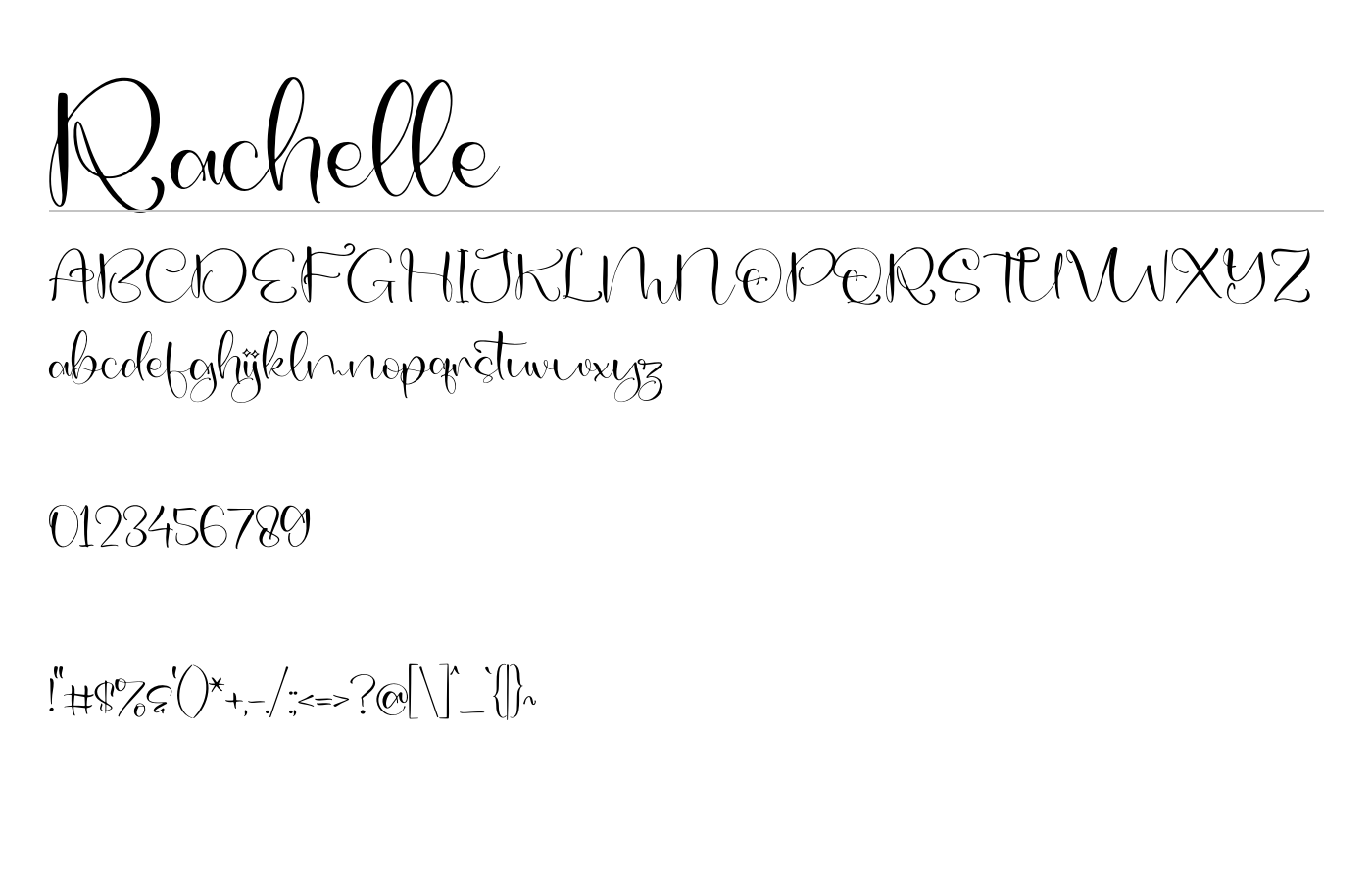
Rachelle is an elegant, delicate script font characterized by its thin, flowing strokes and whimsical flourishes that give it a graceful, feminine feel. Its tall x-height and decorative loops make it perfect for sophisticated branding, wedding invitations, or stylish logos where a romantic and artistic touch is desired. This font excels in display use, adding charm and personality to headlines and creative projects that benefit from a light, airy aesthetic.
Rachelle Font